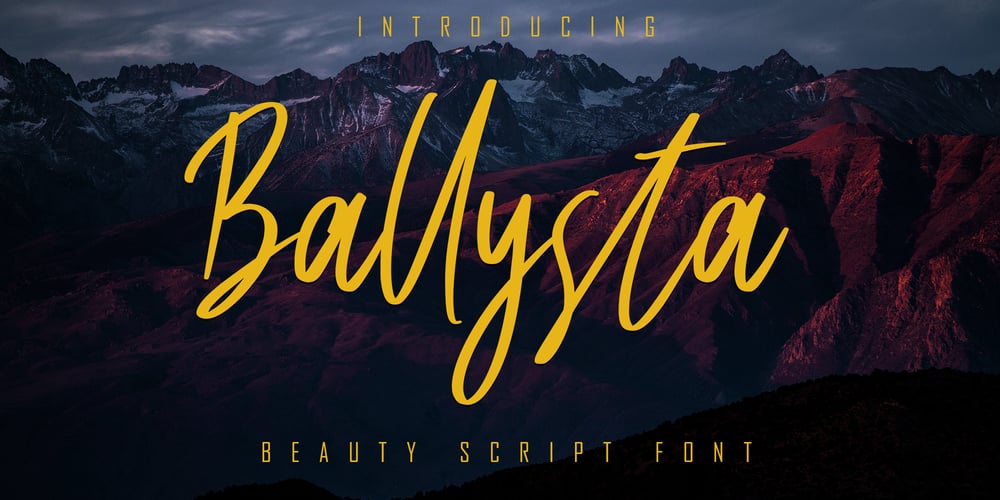
Ballysta Font Family was designed by Irfan Mahmudin and published by Skiiller Studio. Ballysta contains 1 styles and family package options. Ballysta Beauty Script Equipped with uppercase, lowercase letters, numbers, punctuation, and so many variations on each character including alternative opentype such as Standard Ligature. Perfect for use for Logotype, Letterhead, Posters, Clothing Designs, Labels, quotes and more